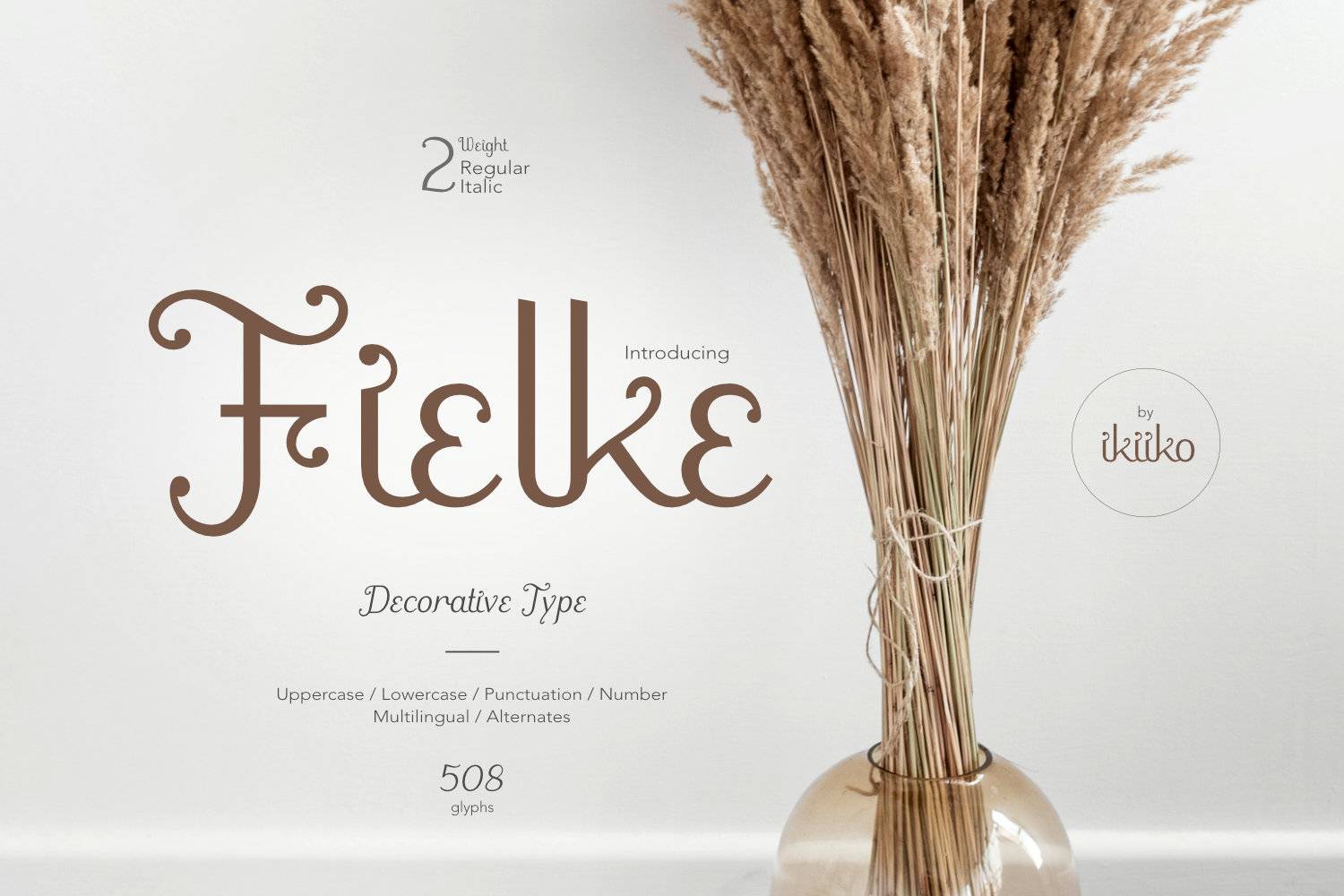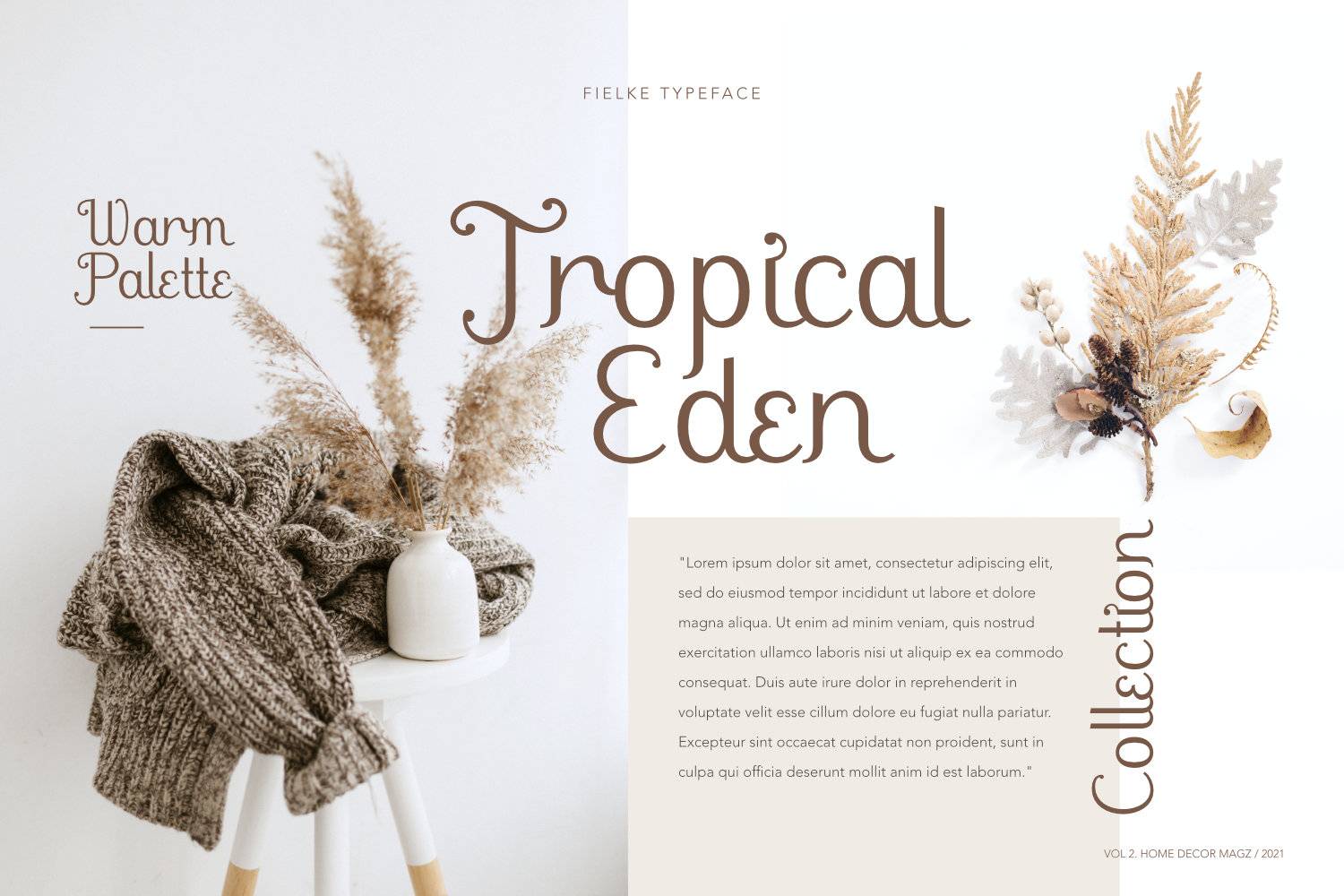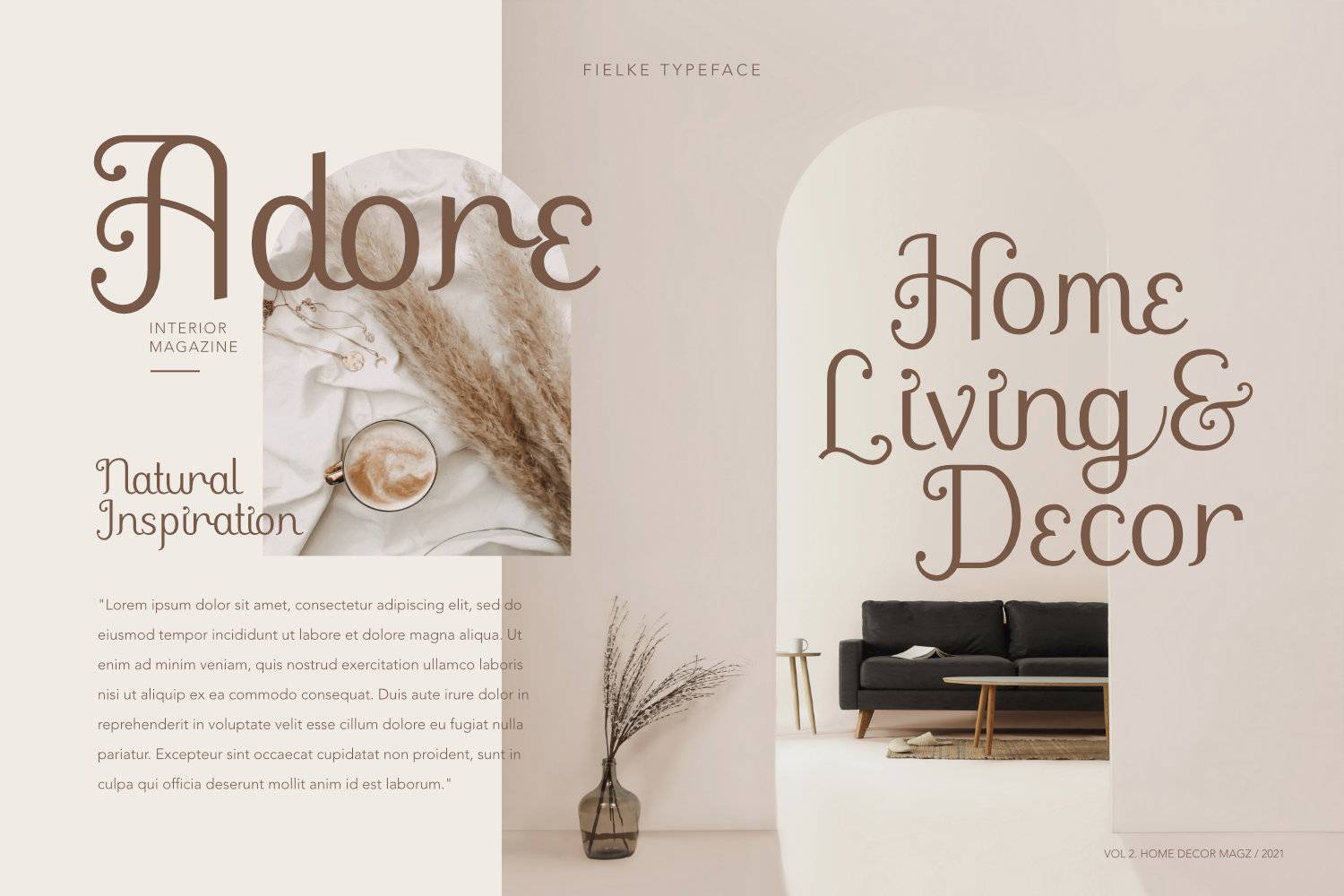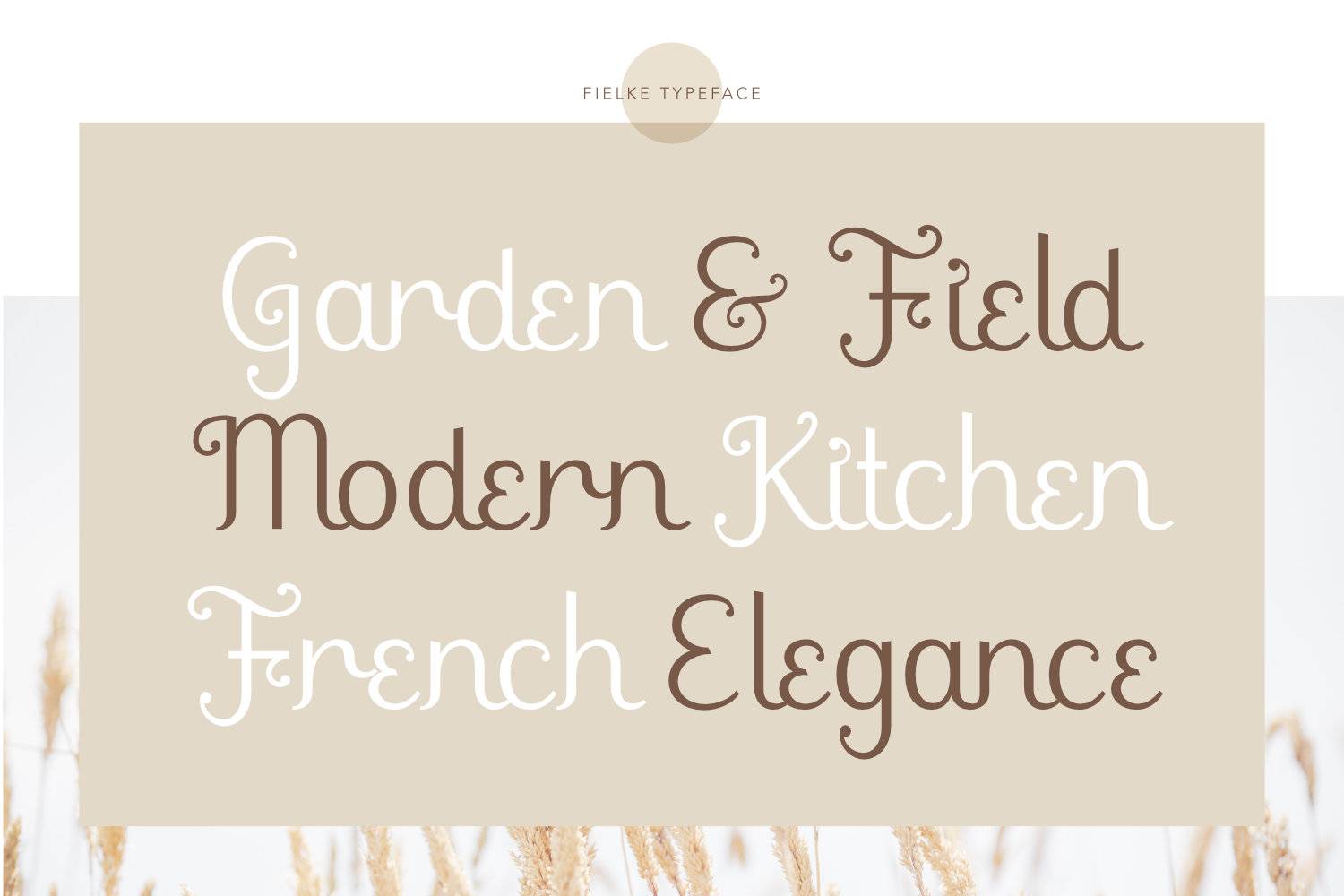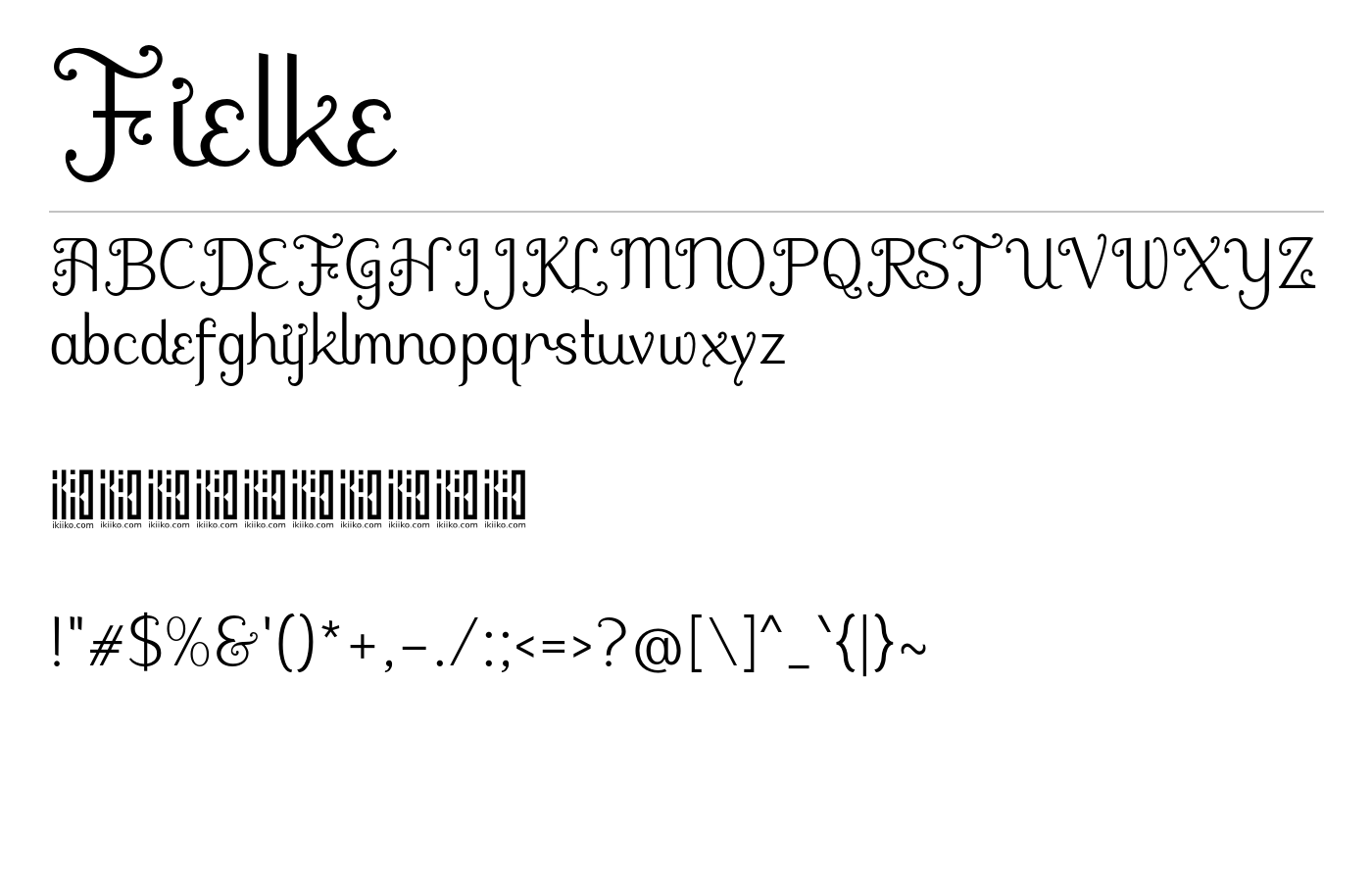
Fielke is a whimsical serif font with delicate, curling strokes that create a playful and elegant feel. Its thin weight and high contrast, combined with unique letterforms featuring looped terminals and single-story letters, make it ideal for creative branding, invitations, and decorative headlines. This font adds a charming, vintage-inspired touch to designs needing personality and flair.
Fielke Font
About Fielke Font
| Font family | Fielke Font |
| Designer | Andhika Pradana, Wahyu Eka Prasetya |